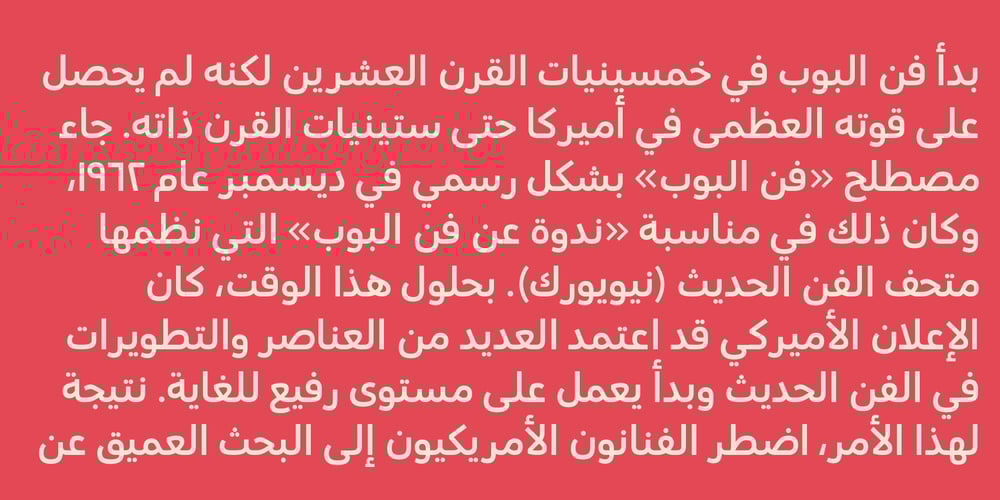
DINosaur Sharp
DINosaur Sharp font
DINosaur Sharp Font Family was designed by José Manuel Urós and published by Type-Ø-Tones. DINosaur Sharp contains 12 styles and family package options. DINosaur Sharp is an evolution of the original DINosaur. The most relevant stylistic feature of this version is the reduction in the rounding of the terminals and the redesign of various characters.The character set is the other novelty, since glyphs and additional resources for writing in Arabic, Cyrillic, Greek and Vietnamese are incorporated with the collaboration in its design, creation and quality control by Pilar Cano and Ferran Milan